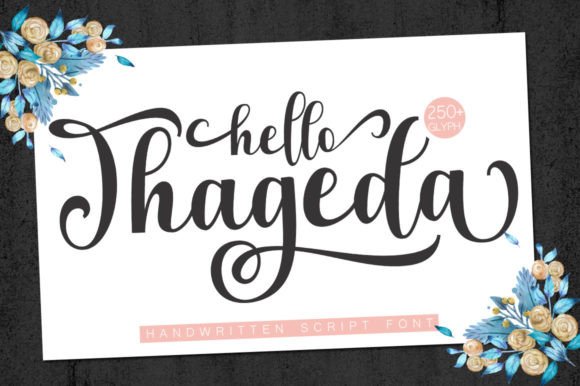
Dive into the world of Hello Thageda, a mesmerizing script font that exudes elegance and sophistication. Crafted with utmost care by Struggle Studio, this font is a true gem for those seeking artistic expression.
Unleash your creativity with Hello Thageda, the perfect font for Instagram posts that demand attention. Its captivating curves and delicate details bring a touch of magic to your words, making them leap off the screen. Craft captivating calligraphy scripts for your DIY projects, transforming ordinary ideas into extraordinary works of art.
Hello Thageda's versatility knows no bounds. Whether you're designing logos, creating stunning invitations, or crafting eye-catching social media graphics, this font will effortlessly elevate your creations. Its graceful lines and enchanting charm lend an air of sophistication to any project, captivating your audience with its timeless beauty.
Picture this: your Instagram feed adorned with Hello Thageda's elegant script, drawing in followers with its magnetic appeal. Your DIY projects infused with a touch of artistry, turning ordinary cards into cherished keepsakes. Your logos imbued with a timeless grace, leaving a lasting impression on clients and customers alike.
With Hello Thageda, you're not just downloading a font; you're embracing an artistic journey. Let your creativity soar as you explore the endless possibilities this font offers. Transform your designs into masterpieces, captivate your audience, and leave an indelible mark on the world.